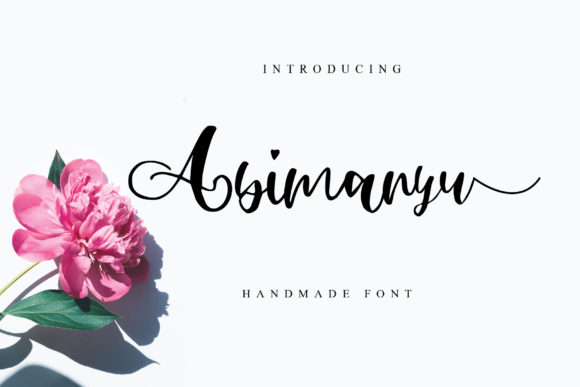
Abimanyu Font: Elevate Your Designs with Elegance and Sophistication
Are you tired of using the same old fonts in your designs? Look no further than Abimanyu, an exquisite handwritten font that is sure to become your new favorite. With its perfect blend of classy calligraphic influences and modern freshness, Abimanyu is the ideal choice for designers and crafters looking to take their projects to the highest levels.
The Story Behind Abimanyu Font
Abimanyu is more than just a font – it’s a work of art. Masterfully designed to evoke a sense of elegance and sophistication, this beautiful handwritten font is perfect for a wide range of design applications. Whether you’re working on a branding project, creating a stunning wedding invitation, or simply looking for a font to add some personality to your social media graphics, Abimanyu is the perfect choice.
What Makes Abimanyu Font So Special?
So, what sets Abimanyu apart from other fonts? Here are just a few of its standout features:
- Classy Calligraphic Influences: Abimanyu’s design is rooted in traditional calligraphy, giving it a timeless and sophisticated feel.
- Contemporary and Fresh: Despite its classic influences, Abimanyu feels modern and fresh, making it perfect for designers who want to create something new and exciting.
- Handwritten with Love: Abimanyu is a truly handmade font, with each letter carefully crafted to ensure a personal and unique touch.
- Versatile: Abimanyu is suitable for a wide range of design applications, from branding and advertising to packaging and more.
How to Use Abimanyu Font in Your Designs
Abimanyu is incredibly easy to use, even for designers who are new to working with fonts. Here are a few tips to get you started:
- Pair it with Other Fonts: Abimanyu looks stunning when paired with other fonts, especially bold sans-serifs and elegant scripts.
- Experiment with Colors: Abimanyu’s classic design looks beautiful in a range of colors, from rich jewel tones to soft pastels.
- Use it for Headings and Titles: Abimanyu’s elegant design makes it perfect for use in headings and titles, where it can add a touch of sophistication and glamour.
Why Designers and Crafters Love Abimanyu Font
Abimanyu has quickly become a favorite among designers and crafters, and it’s easy to see why. Here are just a few reasons why:
- Unique and Personal: Abimanyu’s handmade design gives it a unique and personal touch that sets it apart from more generic fonts.
- Elegant and Sophisticated: Abimanyu’s classic design makes it perfect for designers who want to create elegant and sophisticated designs.
- Easy to Read: Despite its elegant design, Abimanyu is incredibly easy to read, making it perfect for use in body text as well as headings.
If you’re looking for a font that will elevate your designs and add a touch of elegance and sophistication, look no further than Abimanyu. With its perfect blend of classy calligraphic influences and modern freshness, Abimanyu is the perfect choice for designers and crafters who want to create something truly special. So why wait? Fall in love with Abimanyu and bring your projects to the highest levels!